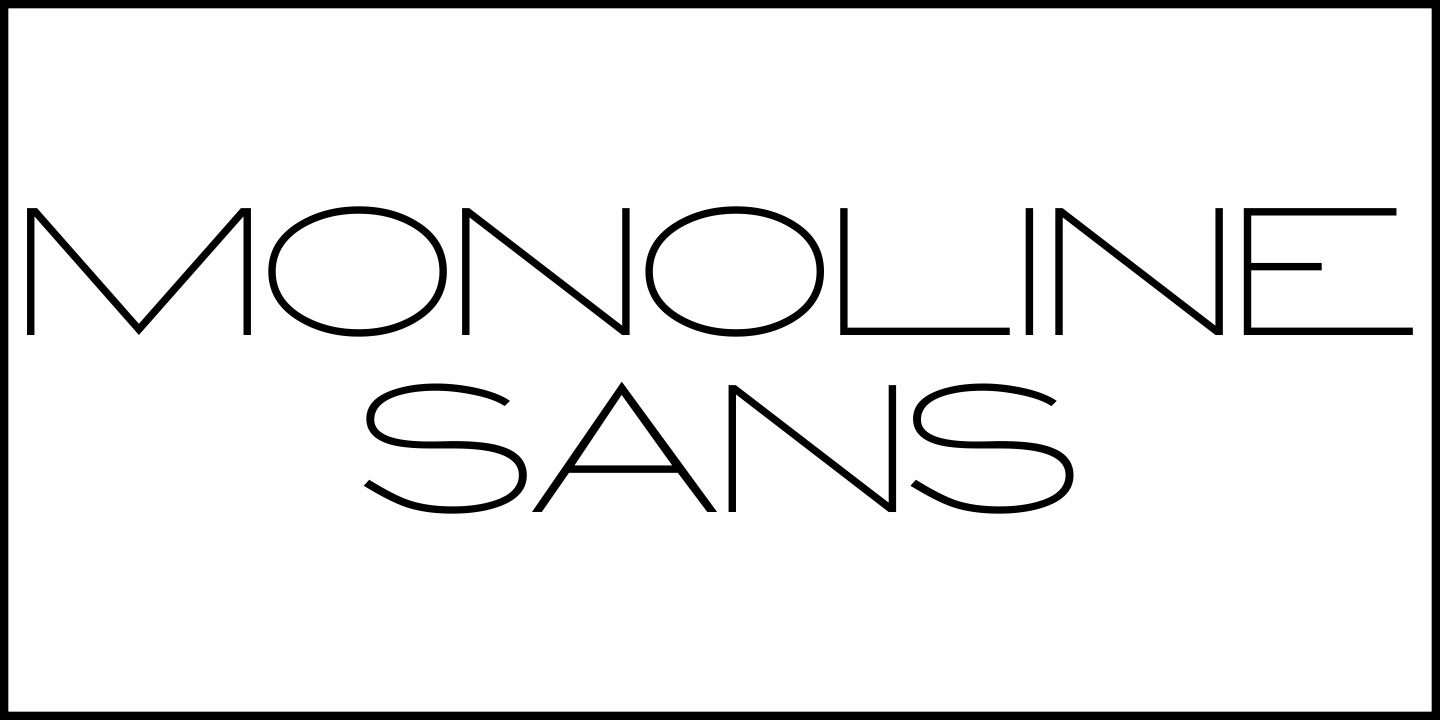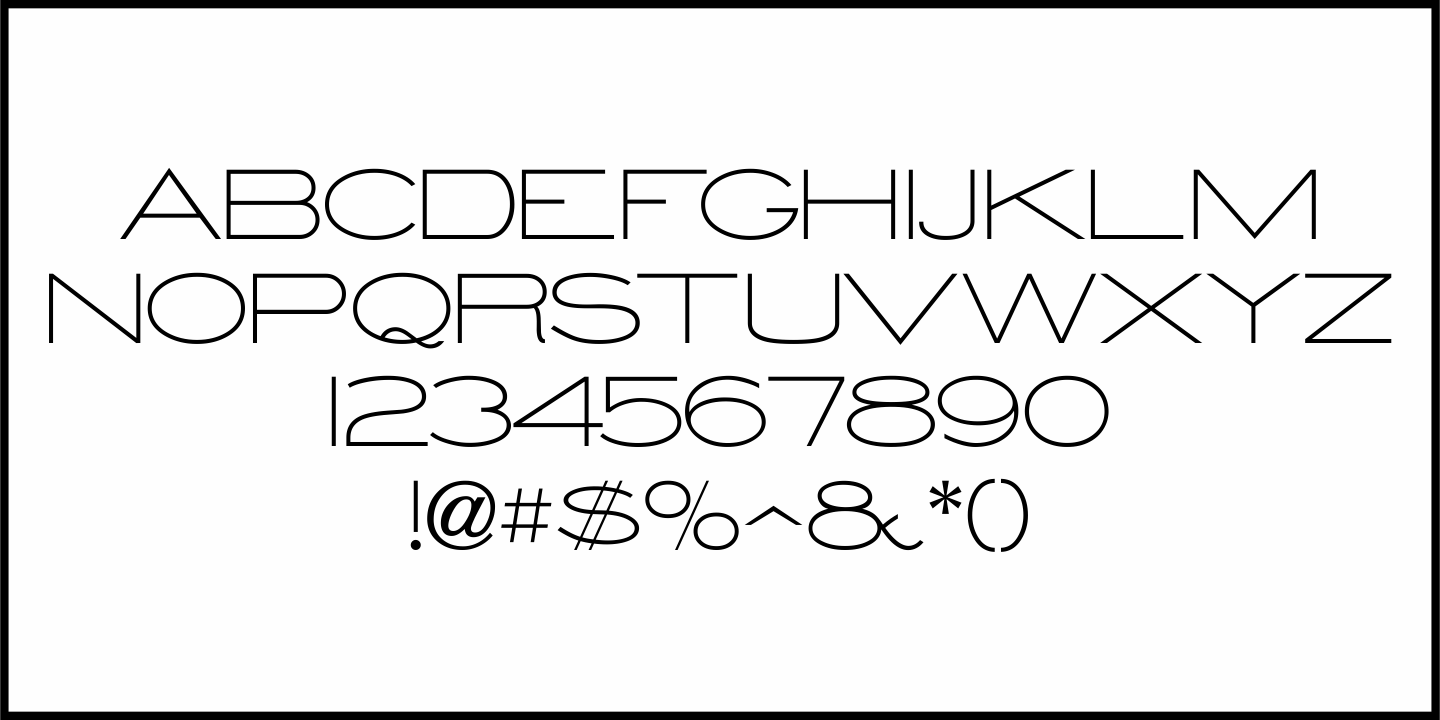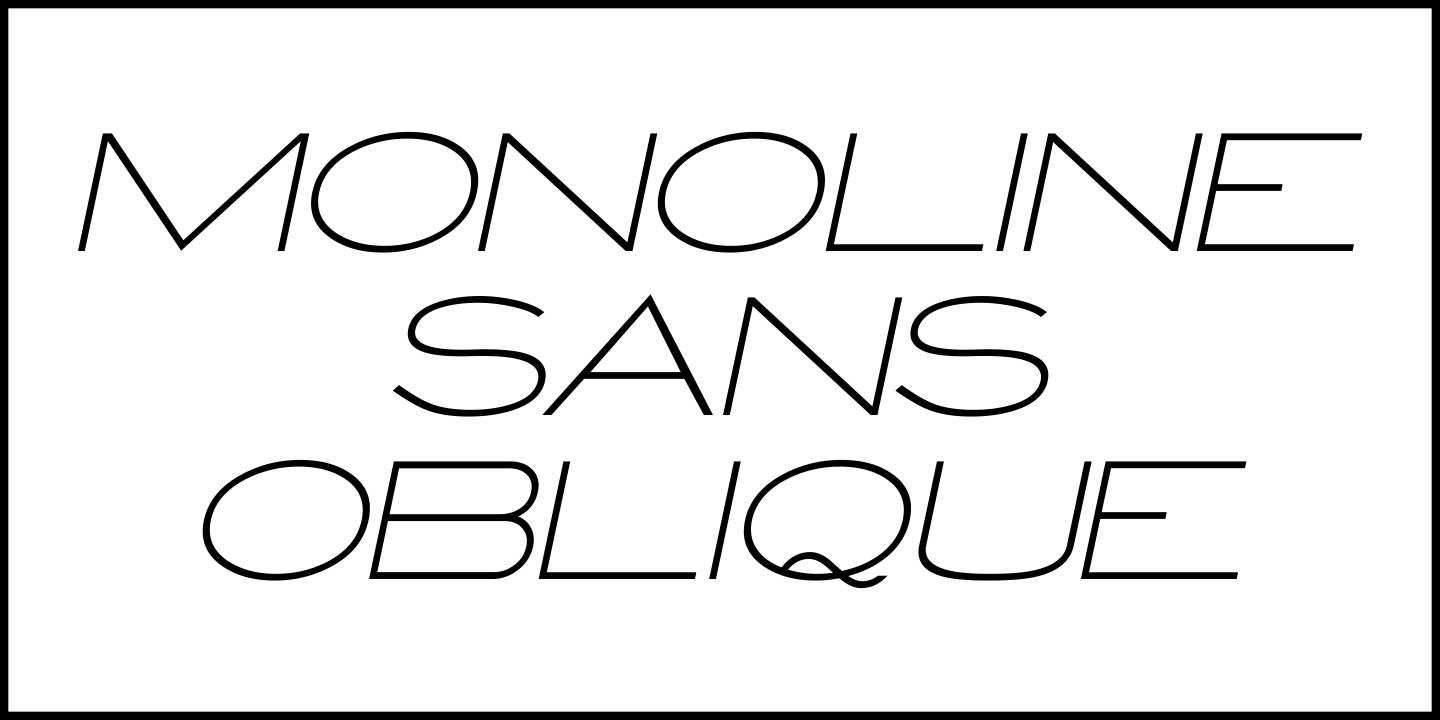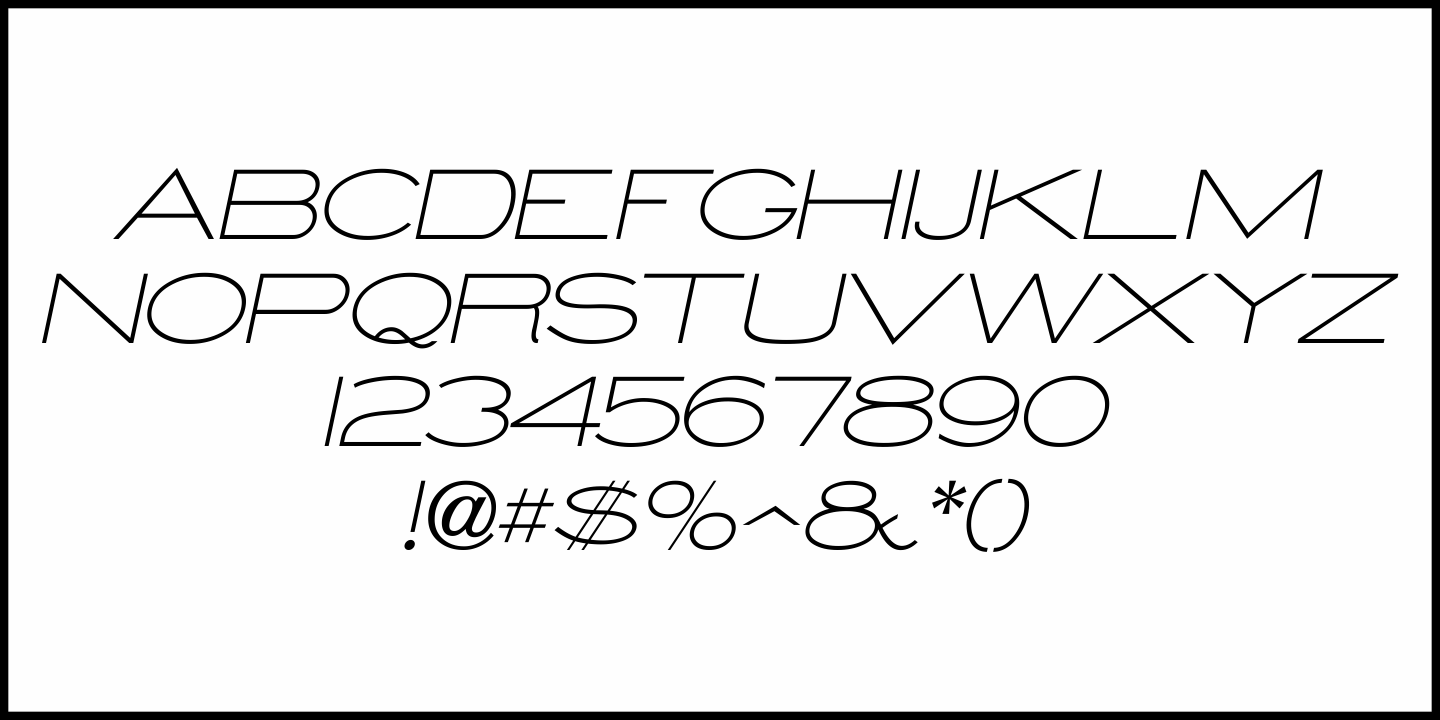
Monoline Sans
A monoline sans serif type design was found within the pages of a book from 1902 called "Lettering Plates" by Charles L. Adams. The wide and thin style of alphabet and numerals displayed are most often associated with hand lettered title plates and architectural renderings.
This is now available as Monoline Sans JNL, in both regular and oblique versions.